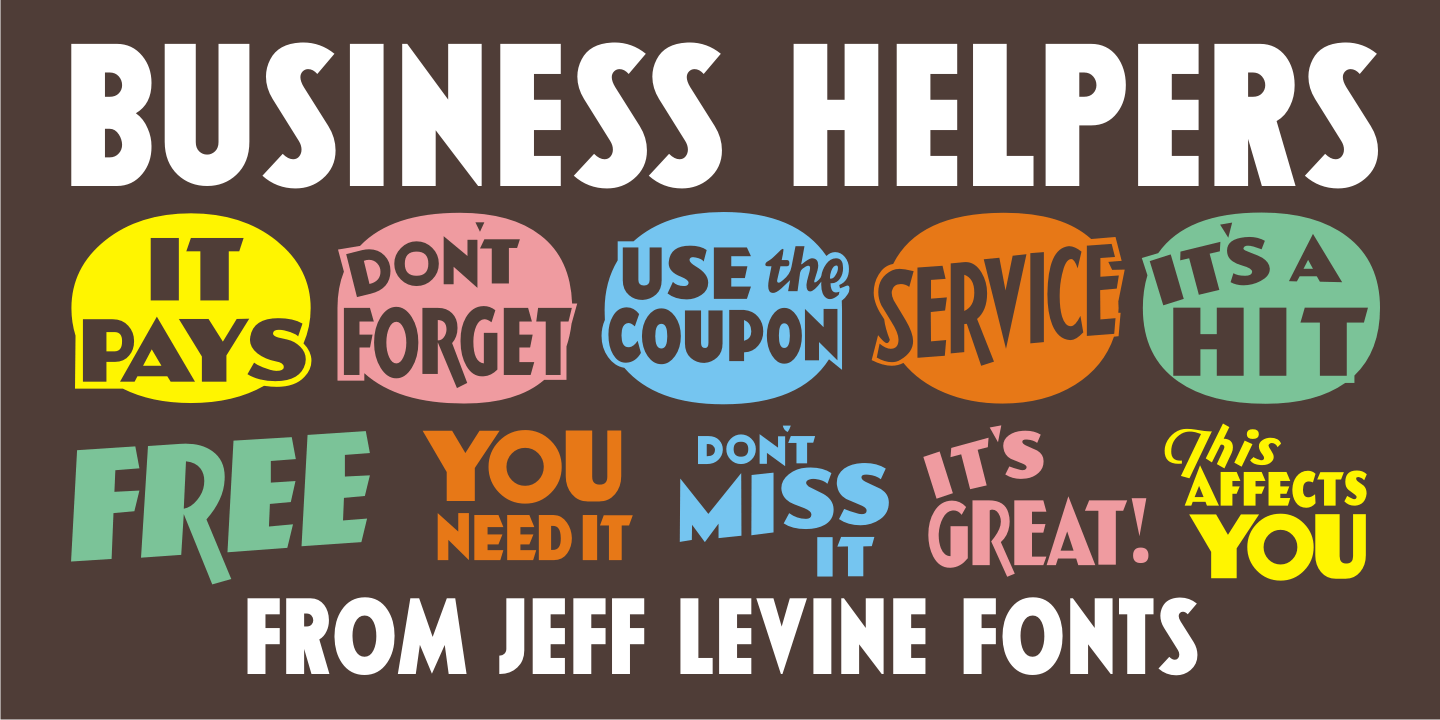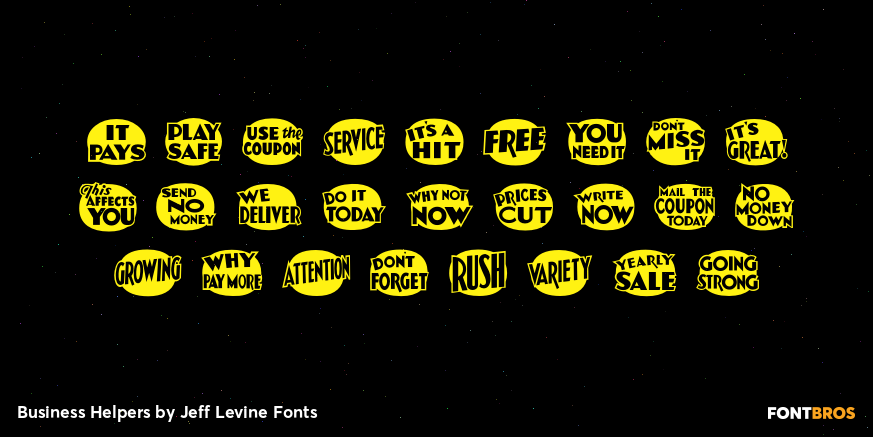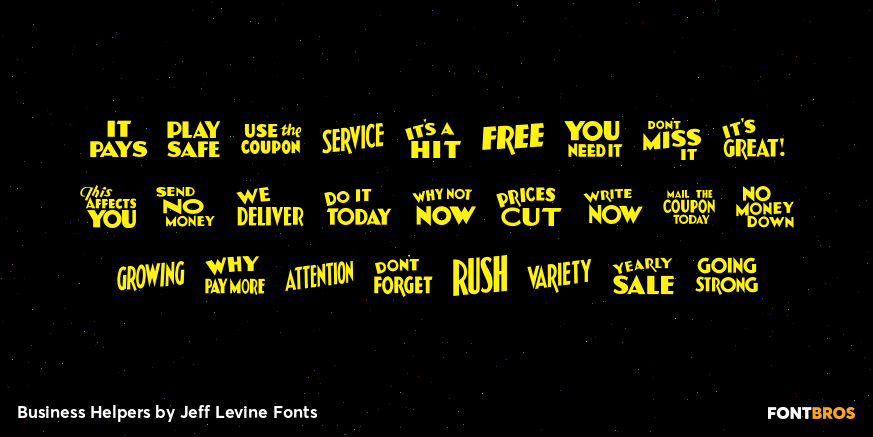
Business Helpers
Duluth, Minnesota's Horace P. Brouillet Syndicate (later known as Syndicuts, Inc.) was one of a number of stock cuts providers to the letterpress trade in the decades preceding paper, then electronic clip art.
Brouillet's 'Typeps” catalogs offered a wide range of images covering numerous subjects, as well as cartoons, catch words and automotive logos. Many of these images have been reproduced in a number of royalty-free clip art publications over the years.
Twenty-Six of these newly-redrawn catch words are found within Business Helpers JNL in two styles.
On the capital keys are the original white-on-black designs, modeled from the vintage source material. The lower case keys have the phrases separated from the decorative ovals and are in black type.